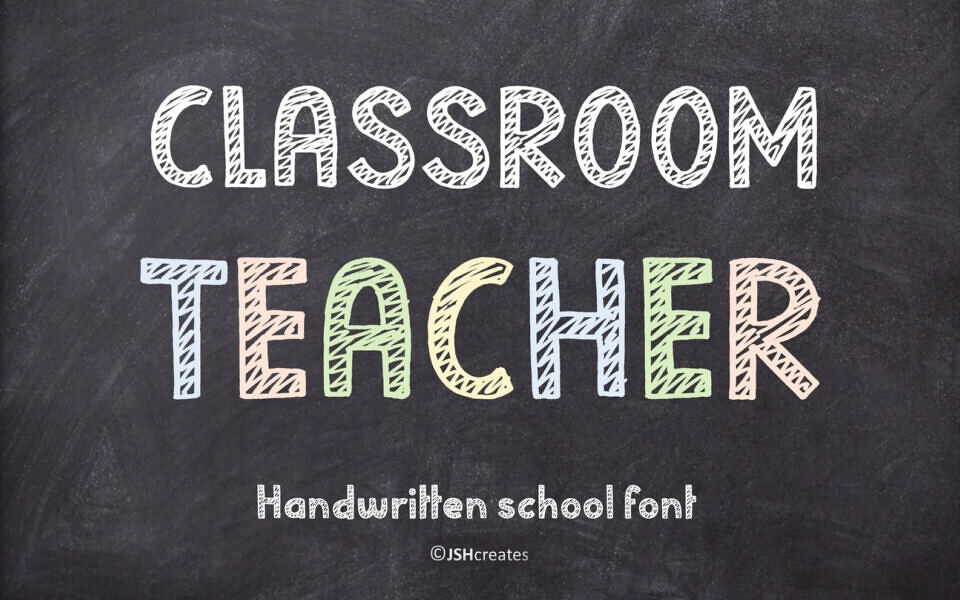
Classroom Teacher is a playful handwritten font inspired by school notes, chalkboards, and classroom creativity. Its fun, casual style brings a friendly and educational feel to posters, worksheets, branding, invitations, and kid-focused designs. Perfect for teachers, students, and creative school-themed projects, this font adds warmth and personality while keeping text clear and eye-catching.